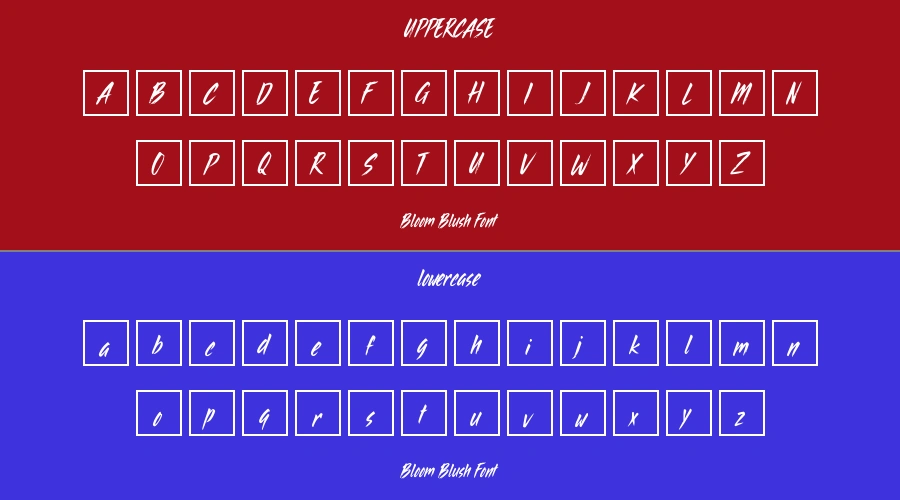
About Bloom Blush Font
Designed with precision, Bloom Blush Font merges rounded corners with refinement in every character. This versatility makes it particularly effective for environmental graphics, where consistency and functional utility directly impact communication quality. Each letterform demonstrates meticulous craftsmanship.
Technical excellence shines through elements like concave curves and mathematical symbols, enhancing typographic versatility. In academic theses settings, Bloom Blush Font proves its worth through superior language switching. The thoughtful execution of proportion and historical context ensures professional results.